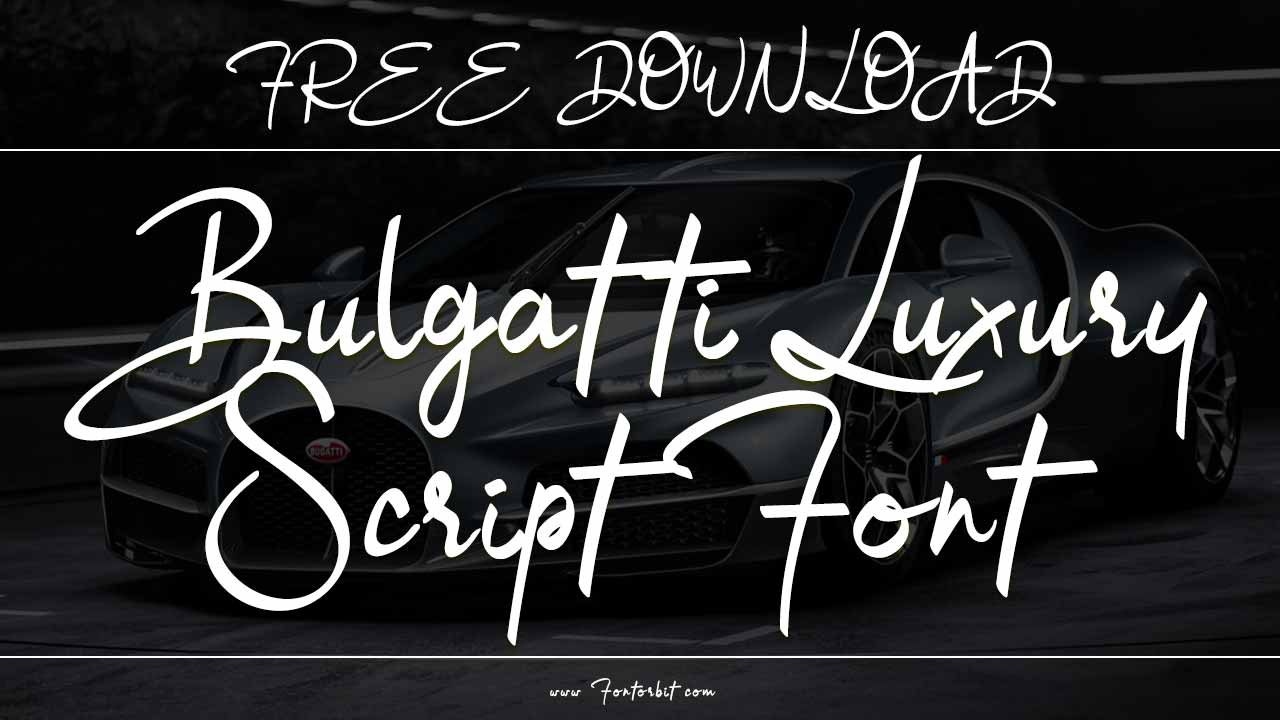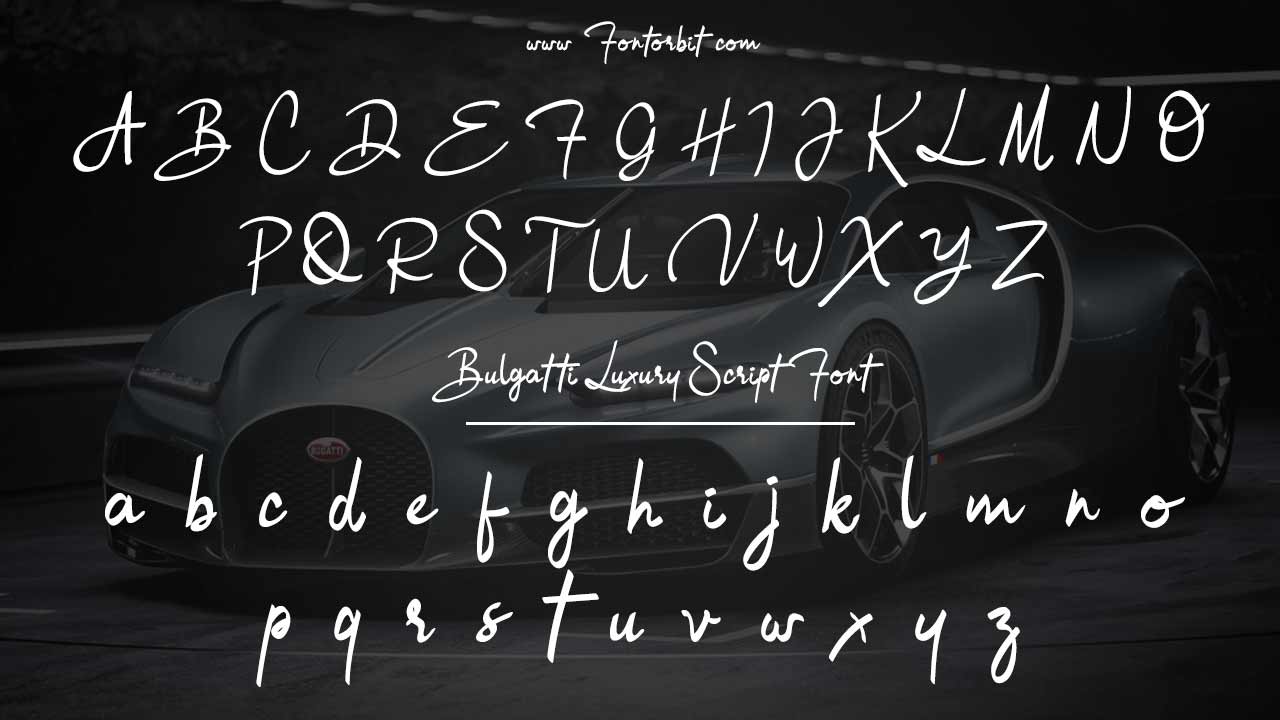
The Bulgatti Luxury Script Font is a real gem. Finding the right dress that fits well and doesn’t stand out too much is a lot like finding the perfect dress. This font was made by Creatype Studio Co. and is a mix of modern elegance and classic calligraphy. It’s great for any project that needs a touch of luxury.
I know what you’re thinking: “Another font?” What’s different about this one? Bulgatti has more than just curves, though. It also has style. It gives anything you make a refined handwritten touch and was inspired by high-end luxury names. This font can really make your design stand out, whether it’s for a logo, wedding cards, or even a simple post on social media. The best part? It’s free for personal use, but if you want to use it for business, you’ll need a license, which we’ll talk about next.
Why Choose Bulgatti Luxury Script Font?
Okay, let’s get into why this font could be your new favorite. I’ll be honest: when I first laid eyes on it, I had to take a moment. It’s just that beautiful. But beyond the aesthetics, Bulgatti has qualities that make it super versatile for all kinds of design projects. Bulgatti is a premium luxury script font that combines beauty and functionality. Here’s why you should seriously consider it:
- Versatile For Various Projects – Whether you’re designing a brand logo or putting together wedding stationery, Bulgatti fits seamlessly into all types of creative work. Ideal for branding, advertisements, wedding designs, and product packaging. It’s sophisticated, but not in an “I can’t touch it” way. You can use it for invitations, social media ads, product labels, and so much more.
- Professional Design – This isn’t your average script font. Bulgatti has an air of professionalism that makes it perfect for high-end branding and luxury product labels. It screams “premium” without being over-the-top.
- Elegant Calligraphy Style – The beauty of Bulgatti lies in its handwritten elegance. It’s like someone took their time to craft each stroke with care, giving it that old-world charm but with a contemporary twist. Offers a unique handwriting taste with sophisticated strokes. The strokes flow so naturally, it feels like they’re dancing across the page.
Bulgatti Luxury Script Font Family
Designed by Creatype Studio Co., Bulgatti Luxury Script Font is a sophisticated handwritten font that blends modern elegance with a classic calligraphy feel. This script font is inspired by luxury brands, making it perfect for branding, product packaging, wedding designs, advertisements, and stationery.
Bulgatti stands out among free fonts due to its sophisticated style and smooth curves, making it ideal for projects that need a refined handwritten touch. Whether you are designing logos, invitations, social media ads, or product labels, this font adds an elegant charm to your work.
What I love about Bulgatti is that it comes in different styles to suit your specific design needs. It’s not just a one-size-fits-all type of font, and that flexibility makes it even more valuable for your projects.
Here’s The Bulgatti Family Lineup:
- Bulgatti Regular – This is the classic version. It’s elegant, timeless, and perfect for most design applications.
- Bulgatti Italic – Want to add a little flair? The italicized version leans just enough to give your design a bit of a dynamic feel without losing its sophistication.
- Bulgatti Bold – Need something that stands out more? The bold version makes a stronger statement, ideal for logos or high-impact branding where you need the text to pop.
- Bulgatti Light – If you’re going for something delicate and airy, this version will add a subtle touch to your design. It’s perfect for those minimalist, chic projects that don’t want to overwhelm the viewer.
Where Can You Use Bulgatti Font?
Let’s get into the fun part: where can you use this beauty? The list is honestly endless, but here are a few ways that I’ve seen Bulgatti really shine:
- Luxury Branding – Perfect for high-end logos and branding projects.
- Wedding Invitations – A beautiful choice for wedding designs and stationery.
- Product Packaging & Labels – Ideal for premium product packaging, branded and luxury stuffs, and labels.
- Social Media & Advertisements – Makes social media ads and promotions look stylish.
- Website Design – Can be used for headlines, typography, and display fonts.
4. What Are The Best Fonts To Pair With Bulgatti?
Bulgatti pairs well with serif fonts, sans serif fonts, Old English fonts, and fancy fonts for a stylish contrast.